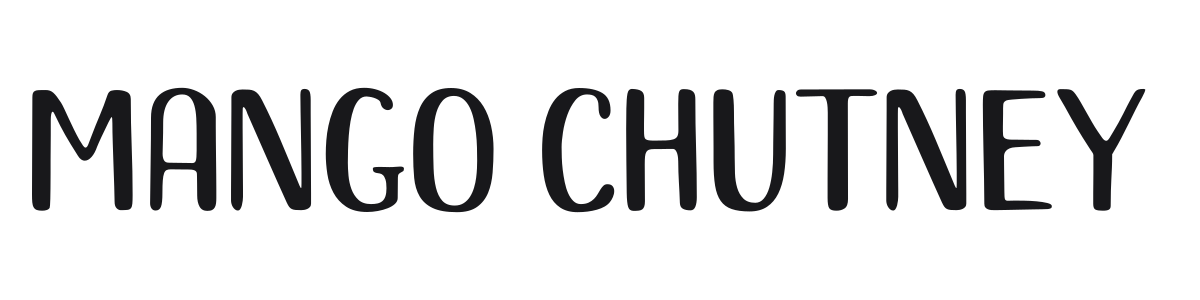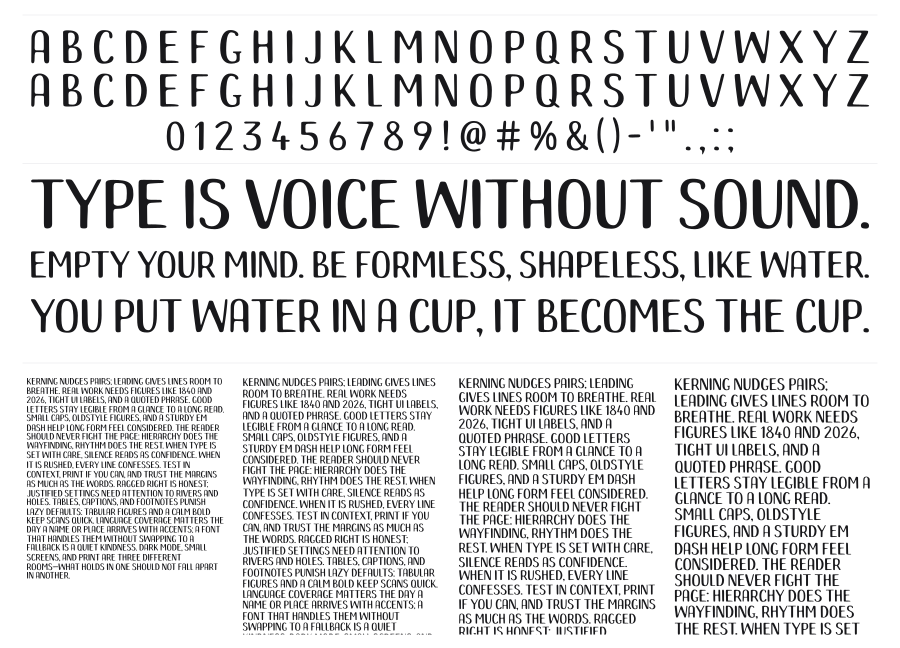
Mango Chutney
Mango Chutney is a bold retro sans with flat-topped characters and organic curved details that nod to Art Nouveau and groovy 1960s lettering. The low stroke contrast and hand-crafted quirks give it a warm, approachable personality that stands out at headline sizes. It works well for food packaging, tropical branding, and anything that benefits from a relaxed vintage charm.